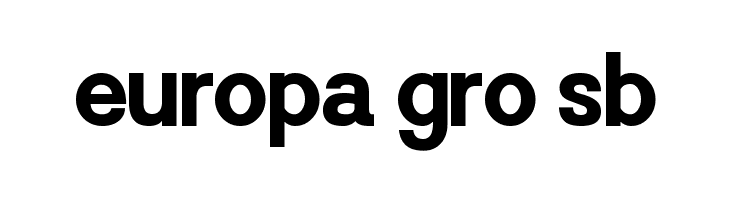
A playful, bold font with rounded edges and a whimsical style.
A playful, rounded font with bold, smooth curves and consistent stroke width.
A bold, expressive brush script font with a textured, hand-painted appearance.
A playful, hand-drawn style font with uneven, dynamic letterforms.
A bold, dynamic script font with flowing, interconnected strokes.
A playful, bold font with a hand-drawn, energetic style.
A modern sans-serif font with clean lines and geometric shapes.
A bold, geometric font with a futuristic and industrial design.
A bold, geometric font with a strong, industrial design and angular edges.
A bold, distressed font with a shattered glass effect.
A bold, angular font with a playful, energetic style.
A bold, playful font with rounded edges and a dynamic, handwritten style.
A bold, geometric font with a modern and sleek design.
A bold, geometric font with a modern and minimalistic style.
Illustrative display font featuring superhero women in action poses.
A playful, rounded font with smooth curves and a friendly appearance.
A playful and dynamic script font with smooth curves and a cohesive style.
A pixelated, retro-style font with a blocky, geometric appearance.
Ornamental dingbat set with compass roses and fleur-de-lis motifs.
A spooky, dripping font perfect for horror-themed designs.
Bold, angular font with a strong, commanding presence.
A bold, expressive script font with a fluid, handwritten style.
A classic serif typeface with elegant and traditional design elements.
A playful, casual handwritten font with smooth, flowing lines.
A bold, elegant script font with flowing, cursive letterforms.
A bold, 3D outlined font with a futuristic and geometric design.
A bold, 3D italic font with sharp angles and a futuristic style.
A bold, geometric font with a modern, industrial aesthetic.
A bold, expanded font with geometric shapes and a modern style.